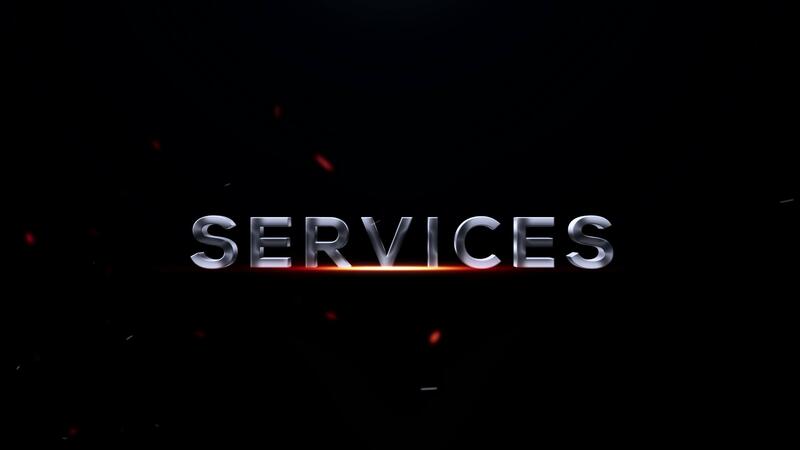
Dynamic cinematic text animation featuring services in a sleek, metallic 3d font, illuminated by an orange glow on a dark, particlefilled background Pro Video